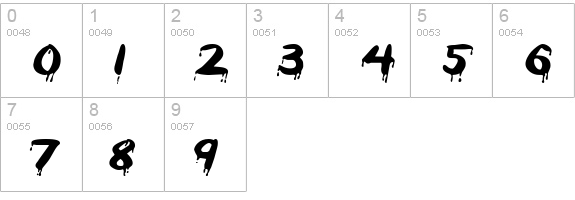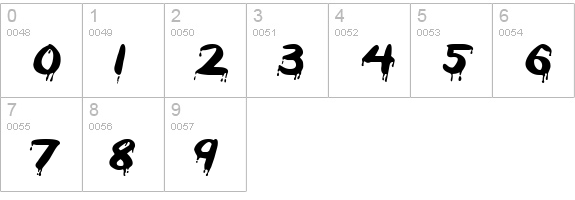
DripsExtended Italic Font Details
DripsExtended Italic is a distinctive, italic variant in the DripsExtended typeface family \xE2\x80\x94 well suited to design and typography projects.
DripsExtended Italic font is a beautifully designed typeface that exudes creativity and uniqueness. The italic style adds a touch of elegance and sophistication to any project, making it perfect for headlines, branding, and creative designs. The dripping effect in the letters gives this font a playful and artistic look that will capture attention. What makes DripsExtended Italic font even more appealing is that it is available for free download at FontsMarket.com. This means that you can easily access and use this eye-catching font in your projects without any cost. Whether you're a designer, artist, or creative enthusiast, DripsExtended Italic font offers a stylish and versatile option to enhance your work. Let your imagination run wild with this freely available typeface and elevate your designs to new heights.